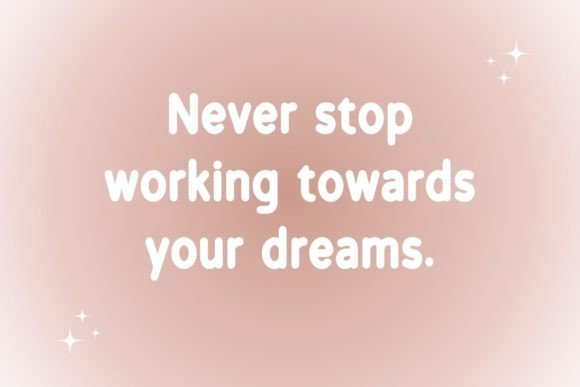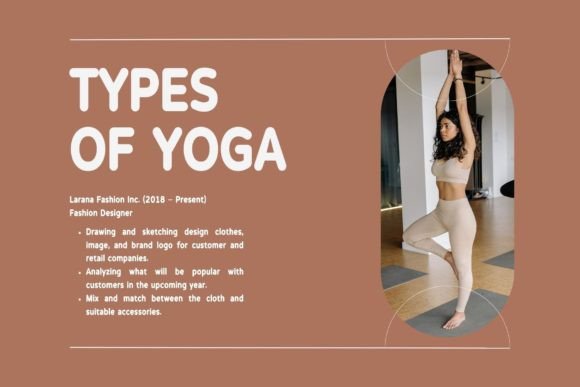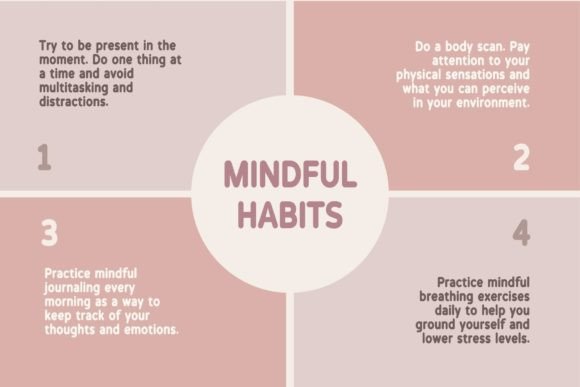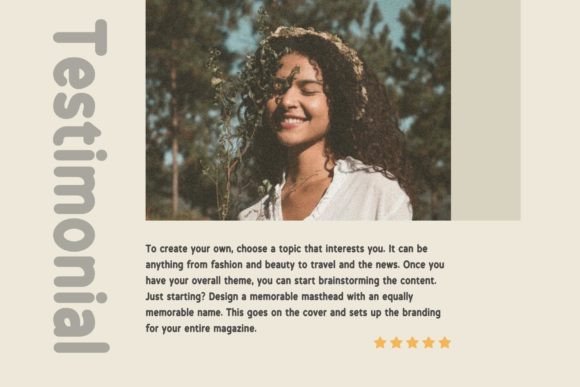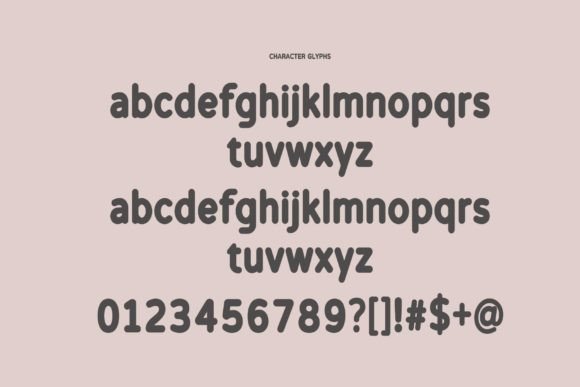
Introducing Brightly Stories Font: The Playful and Friendly Sans Serif for Your Designs
In the world of typography, fonts play a crucial role in conveying the tone and personality of a brand or design. If you’re looking for a modern, round-ish sans serif font that exudes a playful and friendly vibe, look no further than Brightly Stories Font. This charming font is designed to bring a touch of approachability and liveliness to your creative projects, making it perfect for designers and crafters alike.
The Characteristics of Brightly Stories Font
Brightly Stories Font boasts soft curves and balanced letterforms that give it a unique and captivating charm. Its modern, sans serif design makes it an excellent choice for headlines, logos, and branding, as it effortlessly captures attention and invites engagement. The font’s round-ish edges and smooth lines create a friendly and approachable feel, making it ideal for designs that require a touch of warmth and personality.
One of the standout features of Brightly Stories Font is its versatility. This font is suitable for a wide range of creative projects, from digital designs to print materials. Whether you’re working on a logo, brochure, or social media graphics, Brightly Stories Font adapts seamlessly to different contexts and applications. Its balanced design ensures that it remains legible and visually appealing, even at various sizes and resolutions.
Brightly Stories Font is a valuable addition to any designer’s or crafter’s toolkit. Its playful and friendly nature makes it an excellent choice for projects that require a touch of whimsy and creativity. Whether you’re designing for a client or working on a personal project, this font is sure to inspire and elevate your work. With Brightly Stories Font, you can:
- Create eye-catching headlines and titles that grab attention
- Design engaging logos and branding materials that reflect your brand’s personality
- Develop visually appealing social media graphics and posts that resonate with your audience
- Produce beautiful print materials, such as brochures, flyers, and business cards, that showcase your creativity
Why Choose Brightly Stories Font?
With so many fonts available, why choose Brightly Stories Font? Here are just a few reasons:
- Unique and distinctive design: Brightly Stories Font stands out from the crowd with its soft curves and balanced letterforms.
- Playful and friendly vibe: This font exudes a warm and approachable feel, making it perfect for designs that require a touch of personality.
- Versatility: Brightly Stories Font is suitable for a wide range of creative projects and applications.
- Easy to read and legible: The font’s balanced design ensures that it remains clear and readable, even at small sizes.